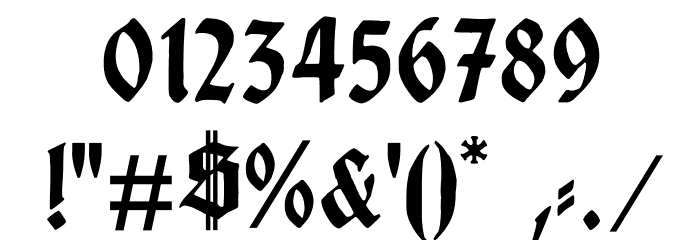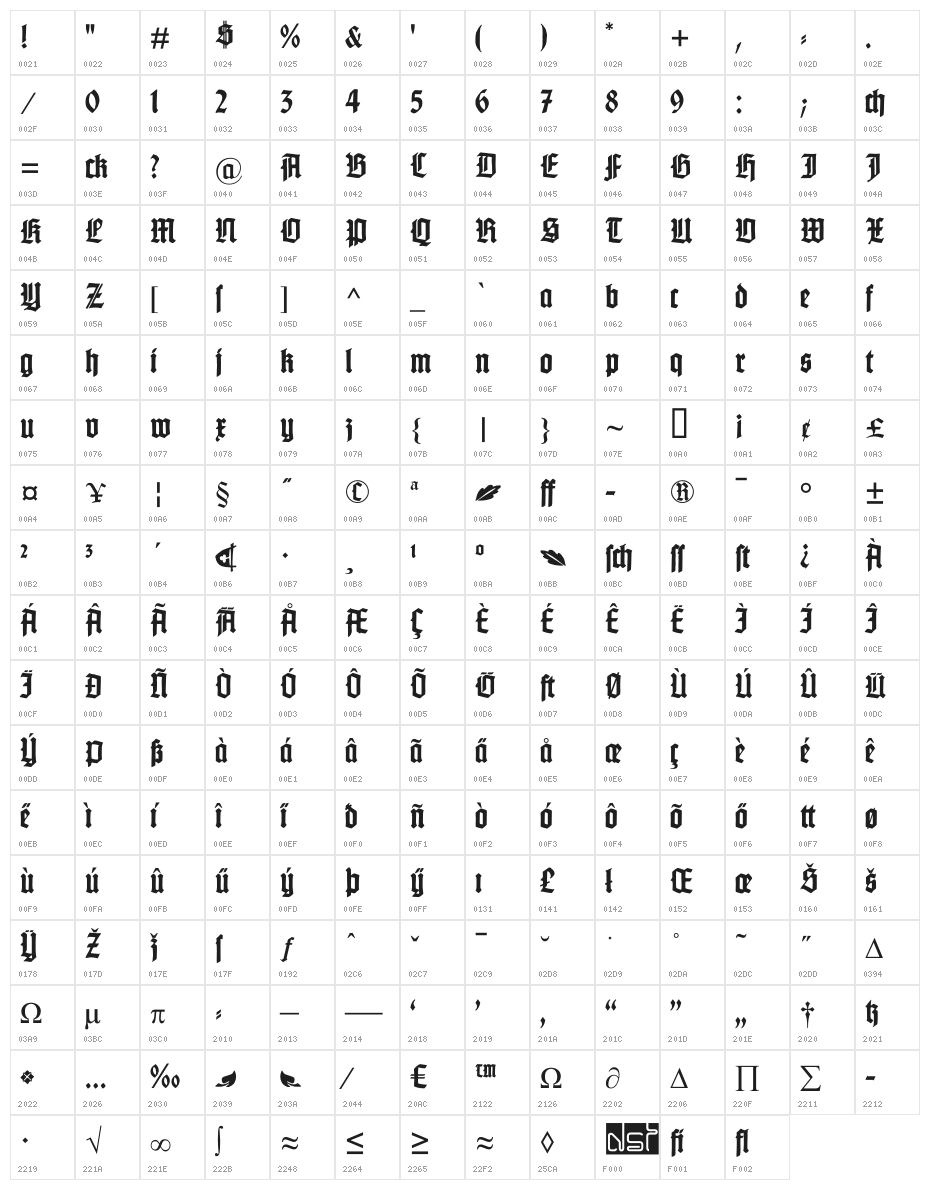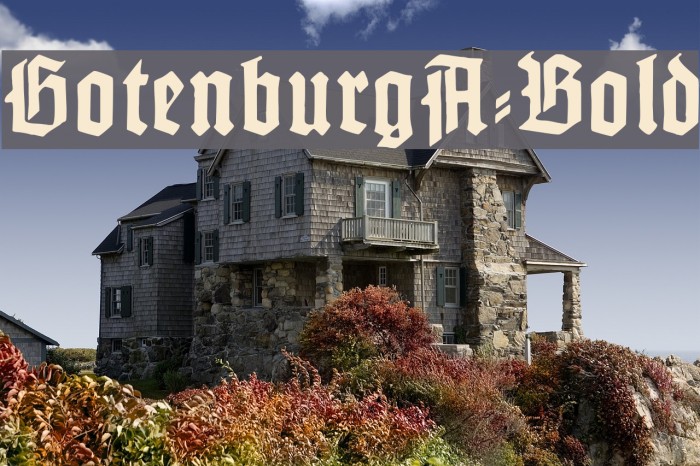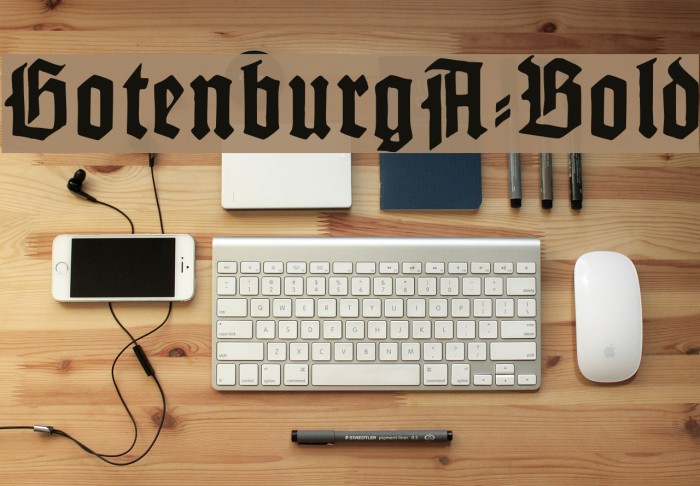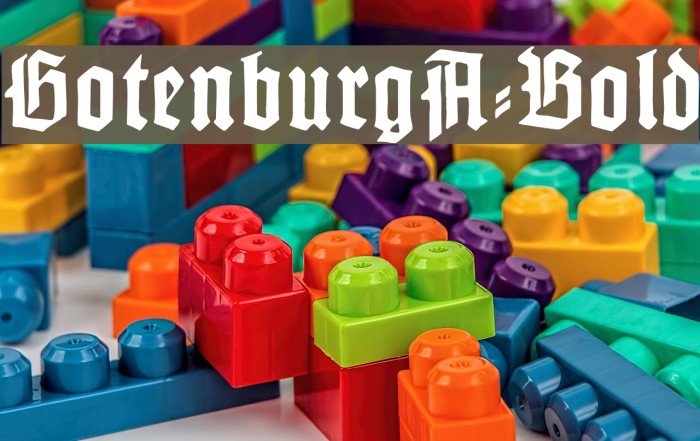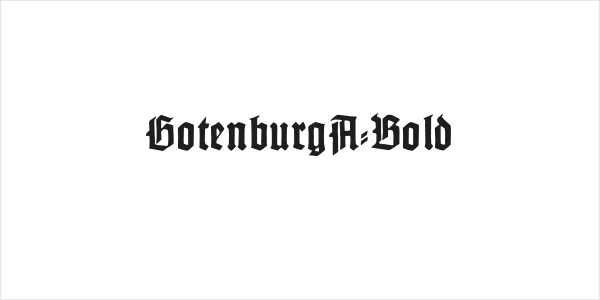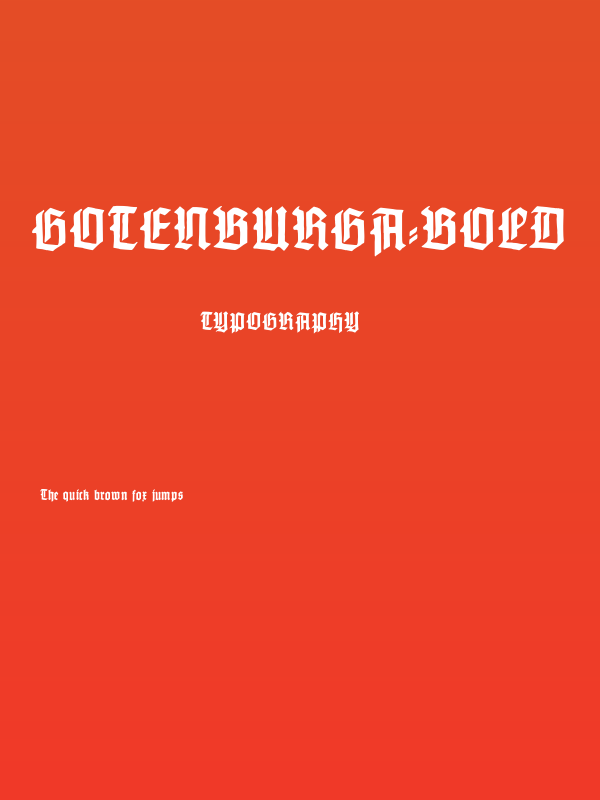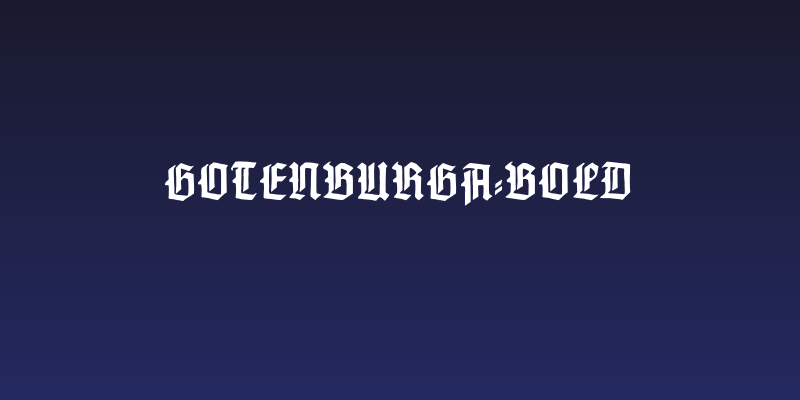
GotenburgA-Bold Font
GotenburgA-Bold Description
This font exhibits a classic blackletter style, characterized by its bold, angular strokes and intricate detailing. The uppercase letters are particularly ornate, with sharp edges and a gothic flair that evokes a sense of historical elegance. The lowercase letters maintain the same stylistic elements, ensuring consistency throughout the typeface. The numerals are distinct and follow the same bold, angular design, making them easily recognizable. Special characters are also included, adhering to the overall aesthetic with their decorative yet legible forms. This font is ideal for projects that require a touch of medieval or gothic influence, offering a dramatic and impactful visual presence.
| Proposed Projects | Ideal for historical or medieval-themed designs, book covers, posters, and branding that requires a dramatic, gothic touch. |